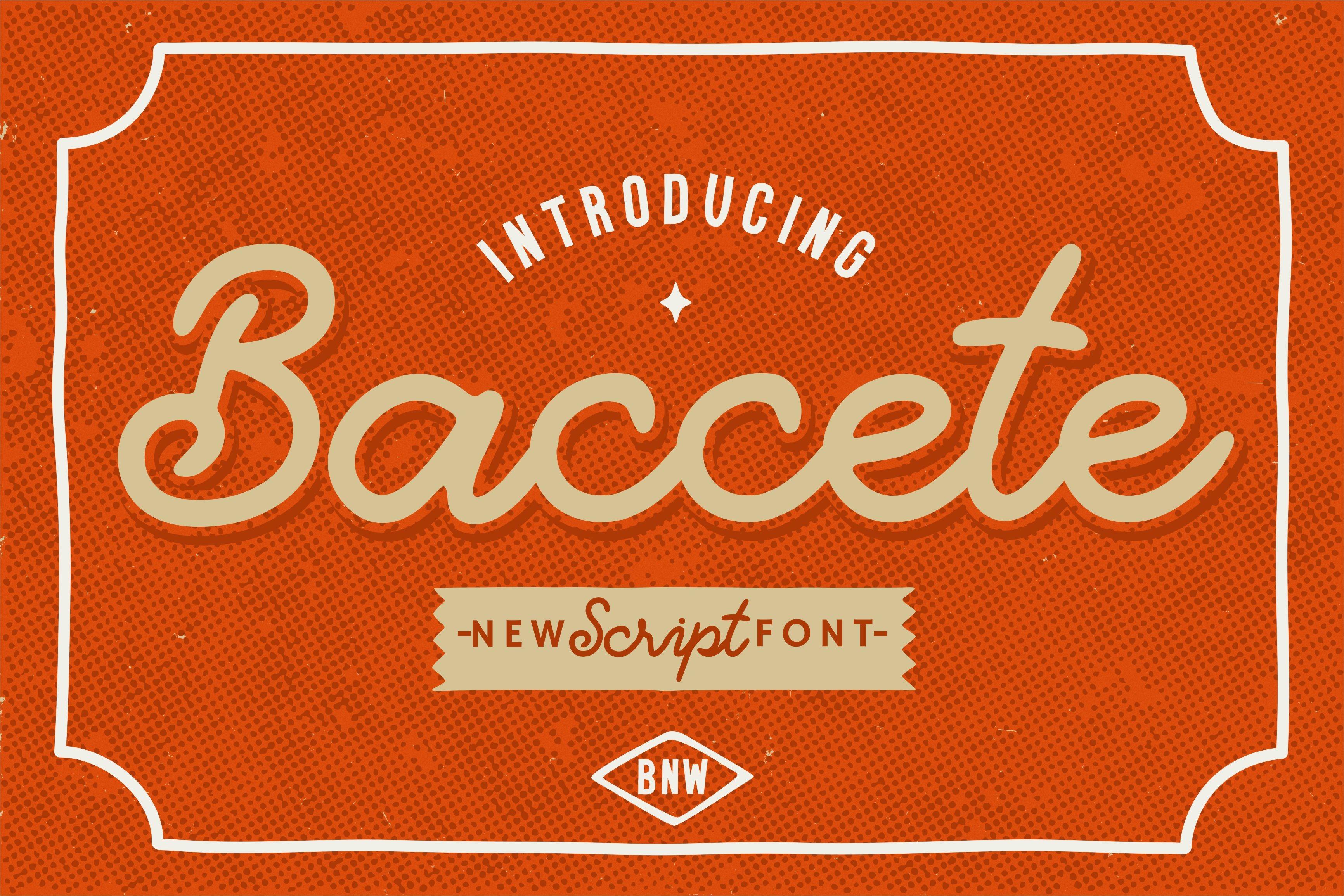
Baccete Font Description
Baccete is a beautiful, well balanced and vintage styled script font. It is defined by smooth curves and is perfect for fashion branding or editorial designs. Add it confidently to your projects, and you will love the results. This font is PUA encoded which means you can access all glyphs and swashes with ease!